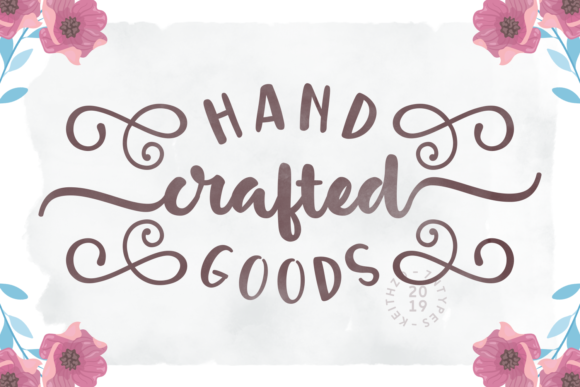
Unleashing the Art of Handcrafted Goods Font
As a designer, have you ever been stuck in a creative rut, desperately searching for the perfect font to elevate your latest project? You know, that moment when the cursor blinks incessantly, taunting you with its silence? For many of us, it’s a familiar feeling. But what if I told you that there’s a typeface that can break free from the ordinary and transport your designs to a world of elegance and sophistication?
Enter the Handcrafted Goods Font, a masterfully crafted typeface that exudes a strong yet refined aesthetic. With its intricate swashes and swooshes, this font is the perfect companion for designers seeking to add a touch of whimsy and personality to their work. Whether you’re crafting a logo, creating a brand identity, or simply experimenting with typography, the Handcrafted Goods Font is an invaluable asset in your design toolkit.
Key Features of Handcrafted Goods Font
- Unique characteristics: Distressed texture and subtle imperfections, evoking a handmade, artisanal feel.
- Character set: Includes a wide range of letters, numbers, and punctuation marks, with comprehensive language support.
- Font styles: Available in Regular, Bold, and Italic variants, providing versatility for various design applications.
Handcrafted Goods Font Review
Overall, I’m really impressed with the Handcrafted Goods Font. The designer has put a lot of care and attention into creating a unique, high-quality font that’s perfect for designers and crafters alike. Here are some of the things that really stand out:
- ✨ The font’s organic, handcrafted feel is perfect for projects that need a touch of authenticity. The imperfections and irregularities add a lot of character to the font.
- ✨ The font’s versatility is impressive. It works well for a wide range of projects, from signage and labels to packaging and branding.
- ✨ The font’s OpenType features make it easy to customize and use in different contexts.
That being said, there are a few limitations to the font that are worth noting:
- ⚠️ The font’s character set is a bit limited, which may make it difficult to use for projects that require a wide range of characters.
Overall, I think the Handcrafted Goods Font is a great choice for designers and crafters who are looking for a unique, high-quality font. While it may have some limitations, the benefits far outweigh the drawbacks.
The Handcrafted Goods Font is ideal for crafting labels, packaging, and branding materials for artisanal products, such as handmade jewelry, candles, and baked goods. It’s also suitable for creating invitations, greeting cards, and other paper crafts that require a personal, handmade touch.
Q: Can I customize Handcrafted Goods Font to fit my specific design needs?